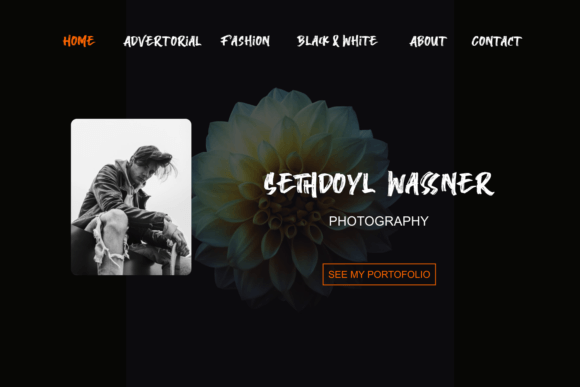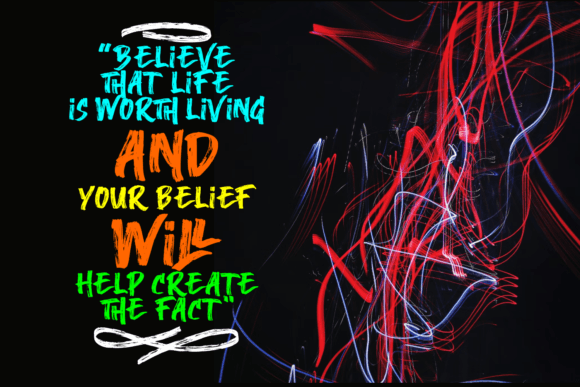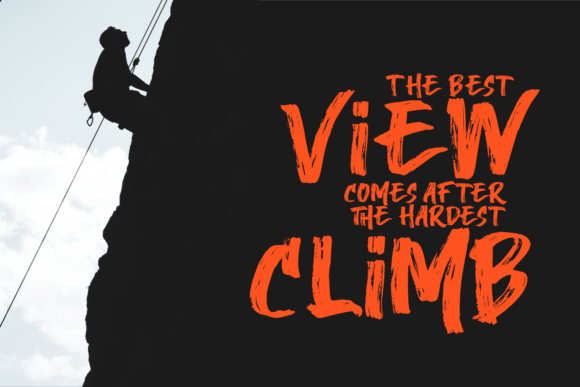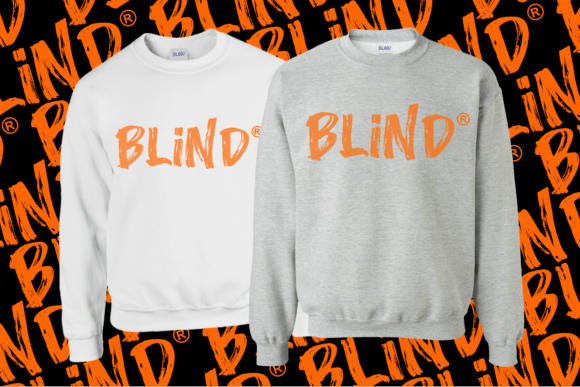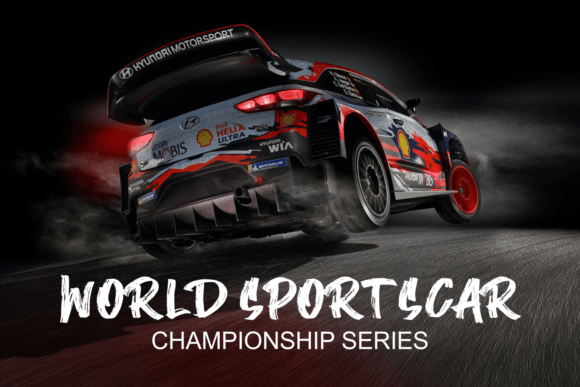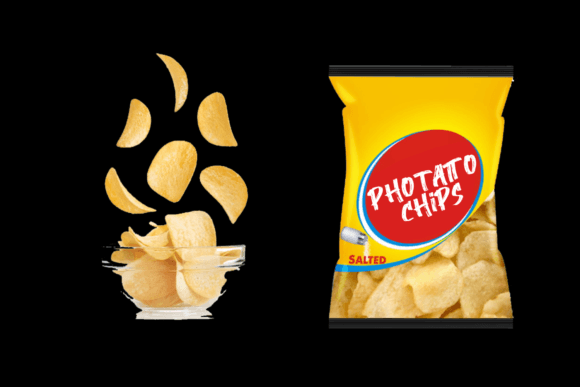
Introducing Black Side Font: The Ultimate Handwritten Brush Display Font
Are you tired of using the same old fonts in your designs? Do you want to add a touch of personality and style to your creations? Look no further than Black Side Font, a cool and trendy handwritten brush display font that’s sure to elevate your font library.
What is Black Side Font?
Black Side Font is a unique and stylish handwritten brush font that’s perfect for designers, crafters, and anyone looking to add a personal touch to their creations. With its bold and expressive strokes, this font is sure to make a statement in any design.
Key Features of Black Side Font
- Handwritten Brush Style: Black Side Font features a beautiful handwritten brush style that’s perfect for creating unique and eye-catching designs.
- Bold and Expressive Strokes: The font’s bold and expressive strokes add a touch of personality and style to any design.
- Trendy and Modern: Black Side Font is a trendy and modern font that’s perfect for designers who want to stay ahead of the curve.
- Versatile: This font is versatile and can be used for a wide range of design projects, from branding and advertising to packaging and more.
Why You Need Black Side Font in Your Font Library
No matter the topic or industry, Black Side Font is an incredible asset to your font library. Here are just a few reasons why:
- Adds Personality to Your Designs: Black Side Font adds a touch of personality and style to any design, making it perfect for designers who want to create unique and eye-catching creations.
- Elevates Your Brand: With its bold and expressive strokes, Black Side Font can help elevate your brand and make it stand out from the competition.
- Perfect for Creative Projects: This font is perfect for creative projects, such as art, craft, and DIY designs, where a personal touch is desired.
How to Use Black Side Font
Black Side Font is easy to use and can be incorporated into a wide range of design projects. Here are a few ideas to get you started:
- Branding and Advertising: Use Black Side Font to create eye-catching logos, ads, and marketing materials that showcase your brand’s personality.
- Packaging Design: Add a personal touch to your packaging designs with Black Side Font, perfect for product labels, tags, and more.
- Art and Craft: Use Black Side Font to create unique and eye-catching art and craft designs, such as handmade cards, invitations, and more.
In conclusion, Black Side Font is a cool and trendy handwritten brush display font that’s perfect for designers, crafters, and anyone looking to add a personal touch to their creations. With its bold and expressive strokes, this font is sure to elevate any design and make it stand out from the competition. Whether you’re looking to add personality to your designs, elevate your brand, or create unique and eye-catching art and craft projects, Black Side Font is the perfect choice.